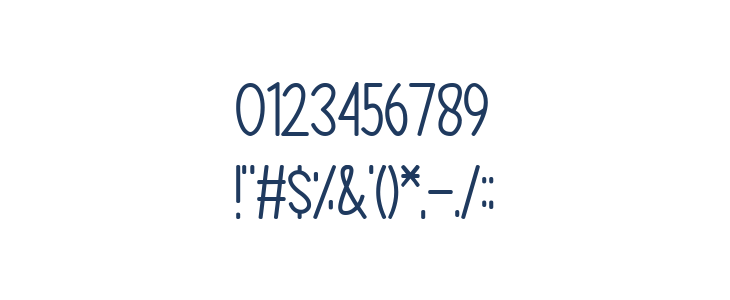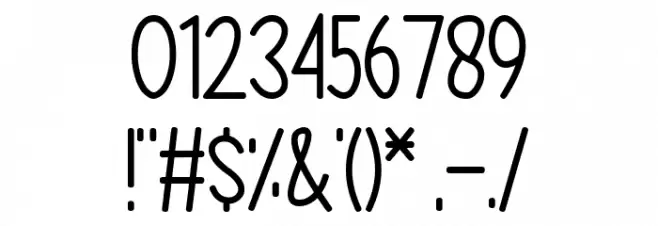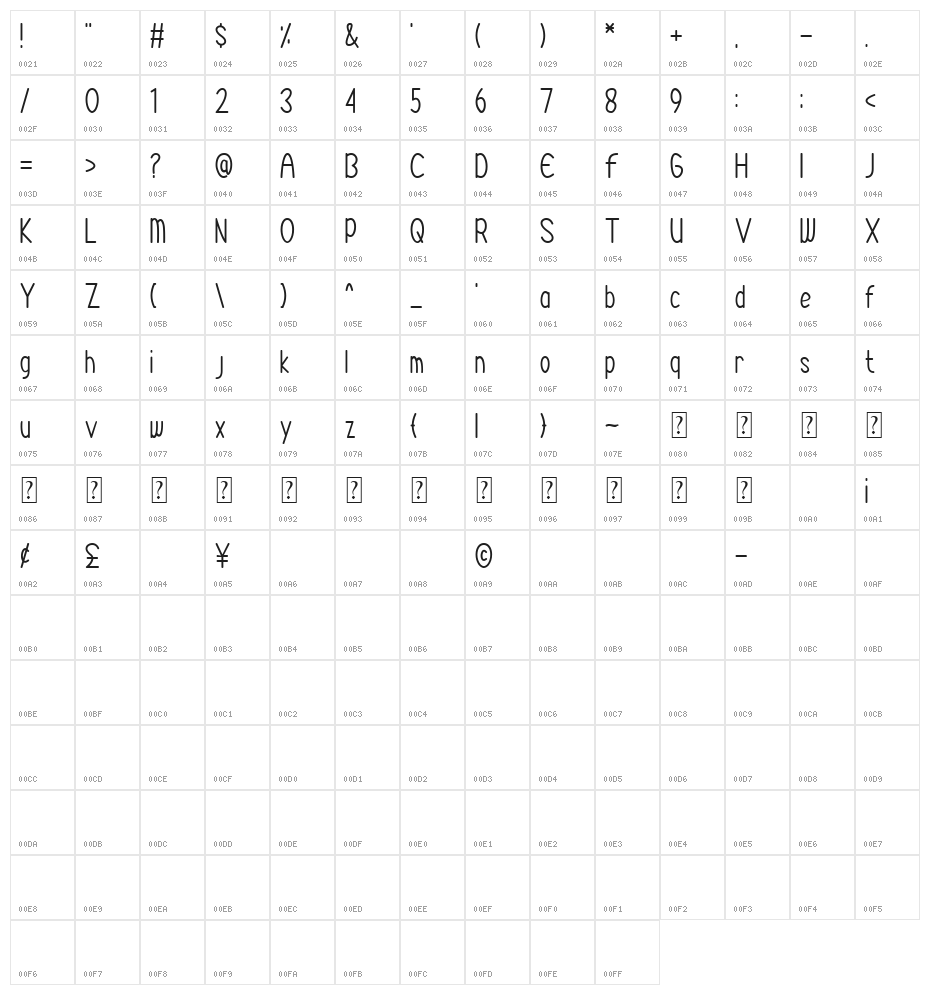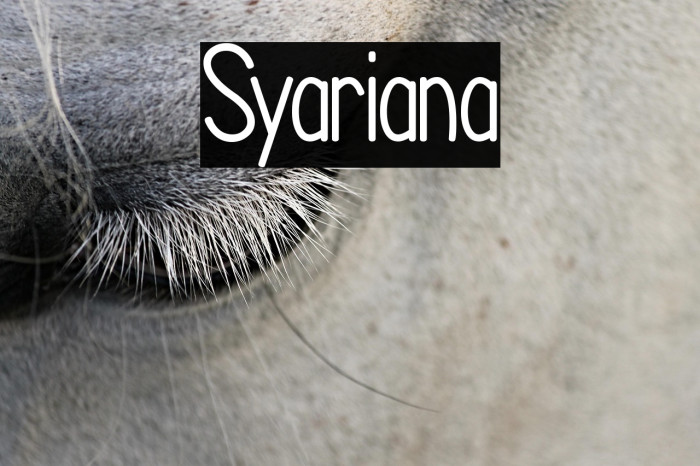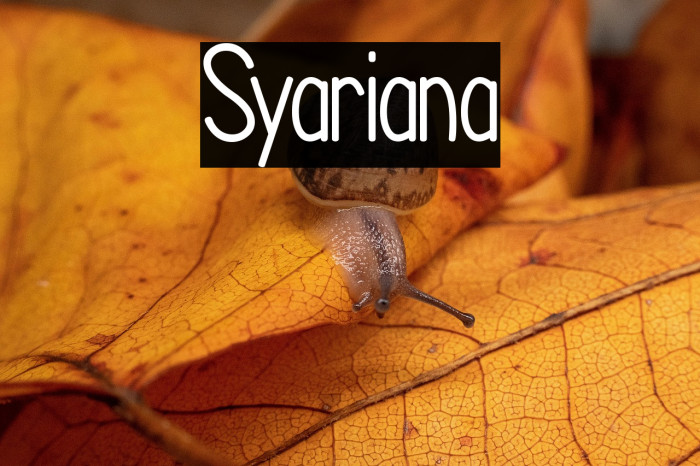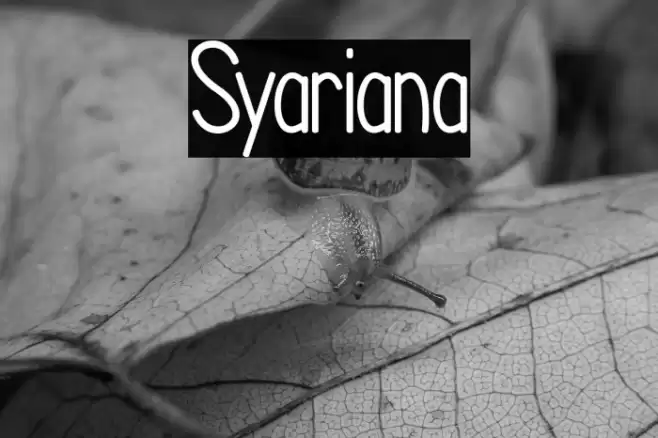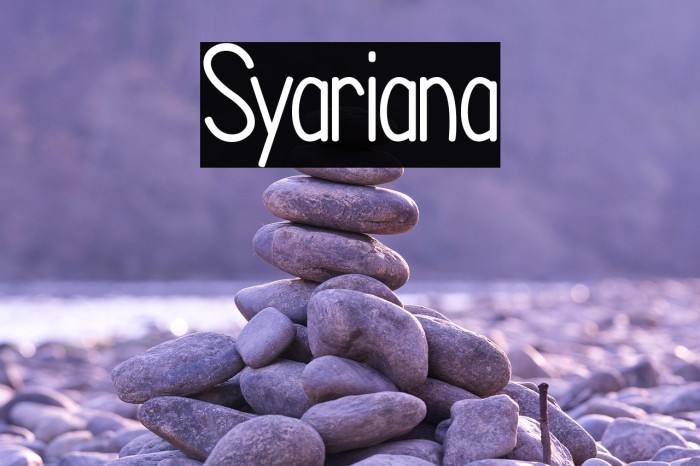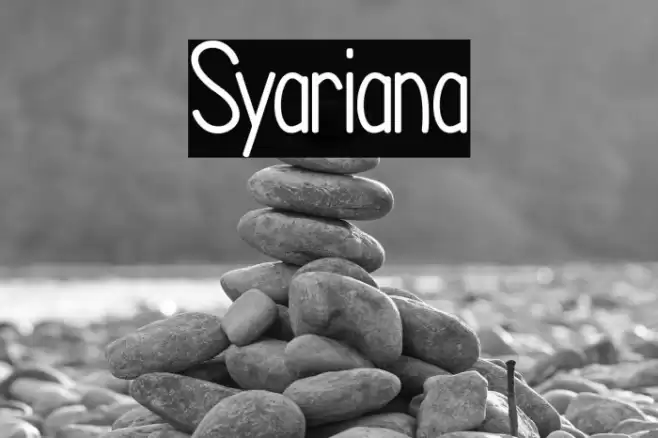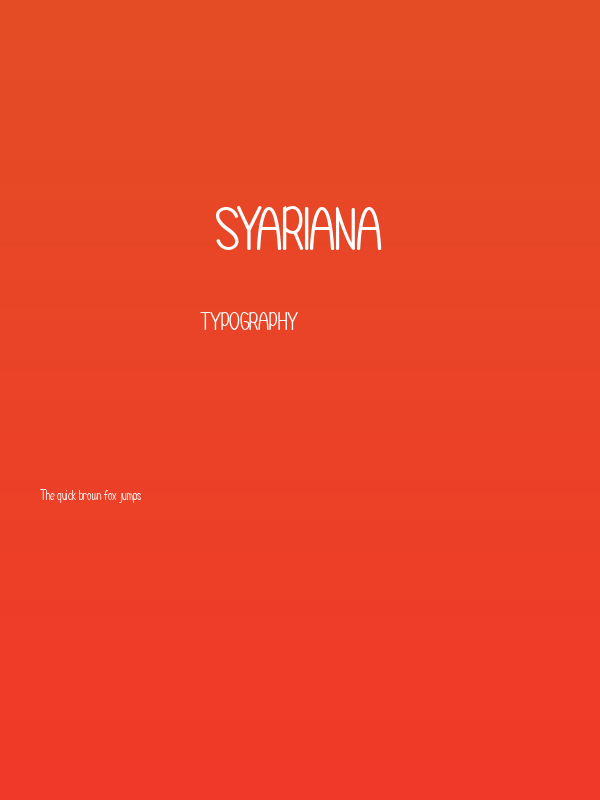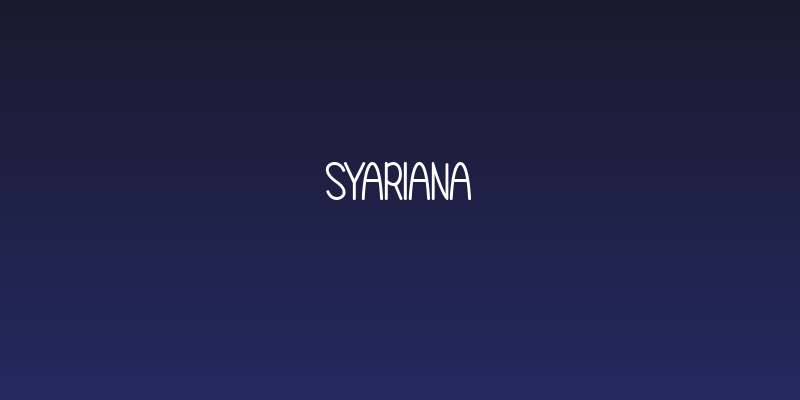
Syariana Font
Syariana Description
This font features a playful and rounded style, characterized by its smooth curves and consistent line thickness. The uppercase letters are tall and slightly narrow, giving a sense of elegance and modernity. The lowercase letters maintain a similar aesthetic, with rounded terminals and a friendly appearance. Numbers are clear and easy to read, matching the overall style of the alphabet. Special characters are well-integrated, maintaining the font's cohesive look. The font's design is approachable and versatile, suitable for a variety of creative projects.
Use CaseHeadlines, Logos, Casual Text
Proposed ProjectsIdeal for children's books, playful branding, greeting cards, and casual invitations.